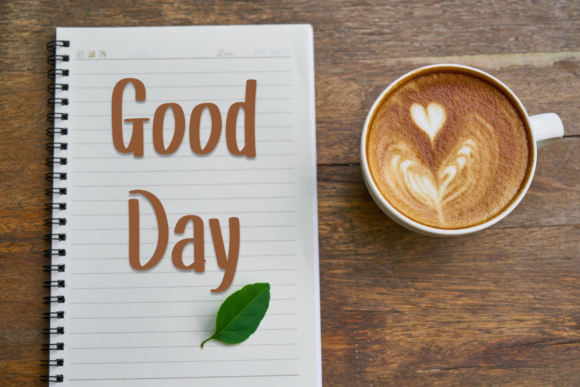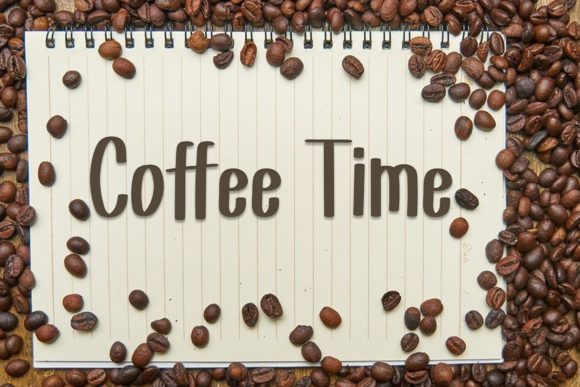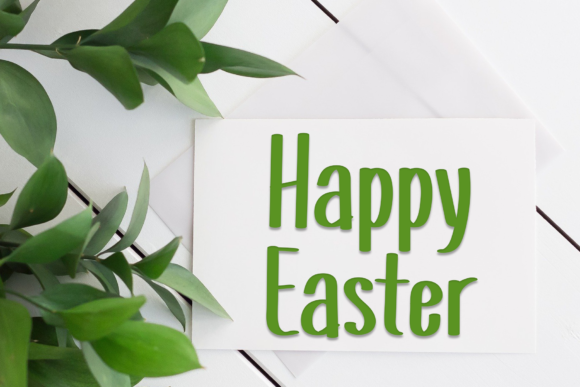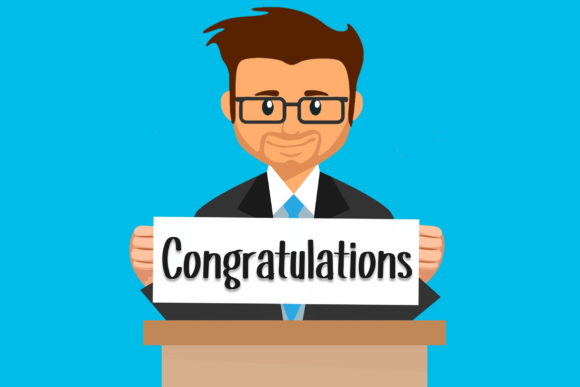
Coffee Latte Font: The Perfect Addition to Your Design Projects
Are you looking for a font that can add a touch of warmth and friendliness to your designs? Look no further than the Coffee Latte Font. This adorable display font is perfect for designers and crafters who want to create visually appealing projects that stand out from the crowd. In this article, we’ll take a closer look at the Coffee Latte Font, its features, and how you can use it to elevate your designs.
What is Coffee Latte Font?
Coffee Latte Font is a cute and friendly display font that is designed to bring a smile to your face. Its whimsical and versatile design makes it perfect for a wide range of projects, from branding and advertising to packaging and social media graphics. The font’s playful and approachable style is sure to brighten up each of your designs and make them more engaging.
Key Features of Coffee Latte Font
So, what makes Coffee Latte Font so special? Here are some of its key features:
- Cute and Friendly Design: The Coffee Latte Font has a unique and charming design that is sure to capture the attention of your audience.
- Whimsical and Versatile: This font is perfect for a wide range of projects, from fun and playful designs to more serious and elegant ones.
- Easy to Read: Despite its playful design, the Coffee Latte Font is easy to read and understand, making it perfect for use in body text and headings.
- High-Quality Design: The font is designed with high-quality graphics, ensuring that it looks great in any size or resolution.
How to Use Coffee Latte Font in Your Designs
Now that we’ve covered the features of Coffee Latte Font, let’s talk about how you can use it in your designs. Here are some ideas to get you started:
- Branding and Advertising: Use the Coffee Latte Font to create eye-catching logos, posters, and advertisements that showcase your brand’s personality.
- Social Media Graphics: Add a touch of whimsy to your social media graphics, such as Facebook posts, Instagram stories, and Twitter headers.
- Packaging Design: Use the Coffee Latte Font to create fun and playful packaging designs that stand out on store shelves.
- Invitations and Party Decor: Create custom invitations, party hats, and decorations with the Coffee Latte Font for a unique and personalized touch.
Why Choose Coffee Latte Font?
With so many fonts available, why choose Coffee Latte Font? Here are just a few reasons:
- Unique Design: The Coffee Latte Font has a unique and distinctive design that will set your projects apart from the crowd.
- High-Quality Graphics: The font is designed with high-quality graphics, ensuring that it looks great in any size or resolution.
In conclusion, the Coffee Latte Font is a versatile and charming display font that is perfect for designers and crafters who want to add a touch of warmth and friendliness to their projects. With its unique design, ease of use, and high-quality graphics, this font is sure to brighten up each of your designs and make them more engaging. So why wait? Add the Coffee Latte Font to your projects today and see the difference for yourself!